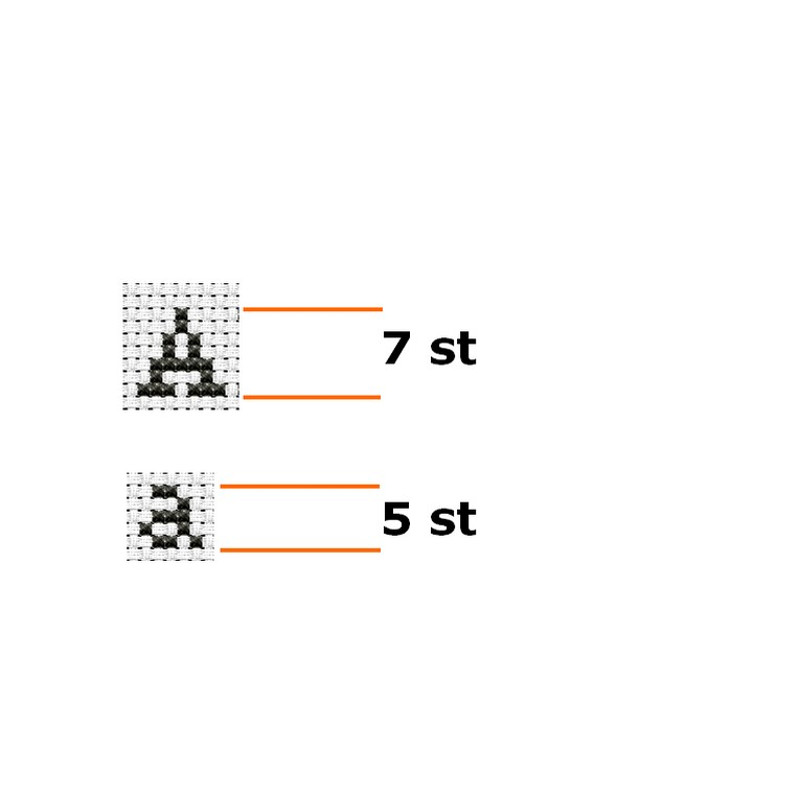
Counted Cross Stitch Alphabet Pattern Modern xstitch font chart cross stitch letters pattern DIY
#11 Cross Stitch Alphabet and 123set pdf pattern
Capital letters are app. 7 stitches tall which is 1/2 inches (1.27cm) high on 14 countt aida.